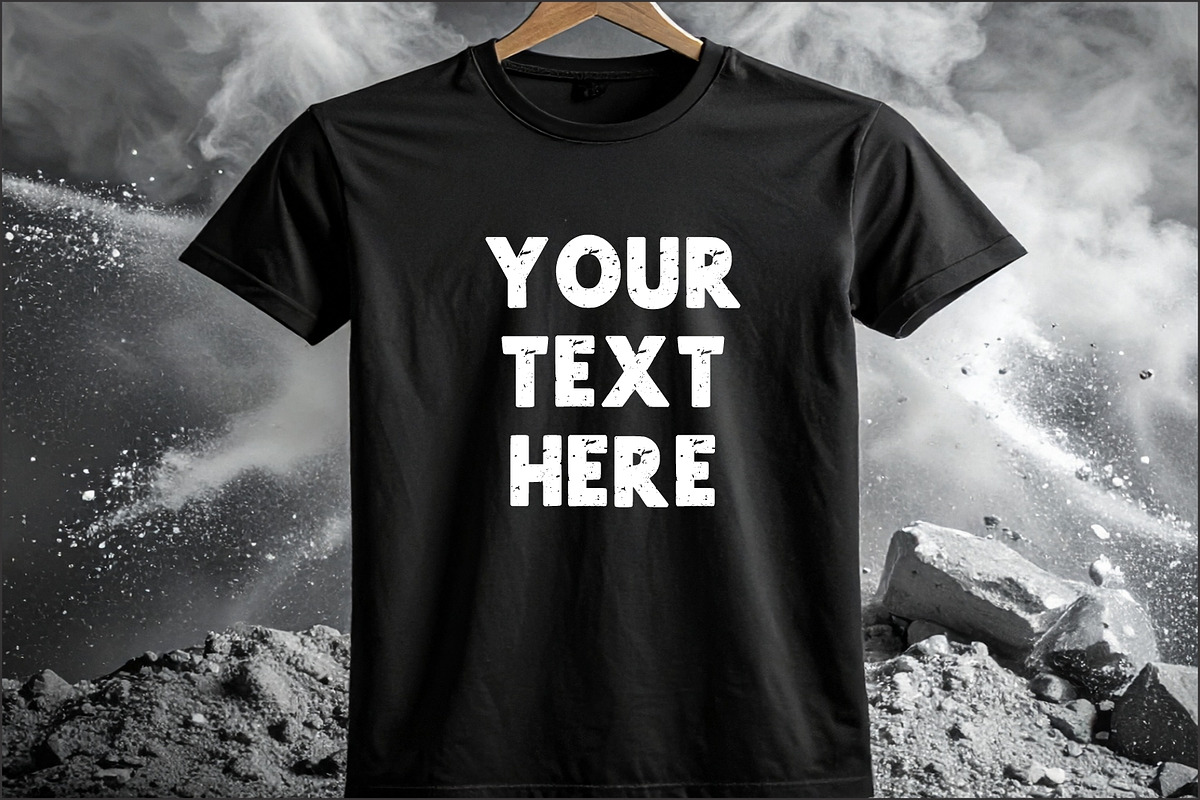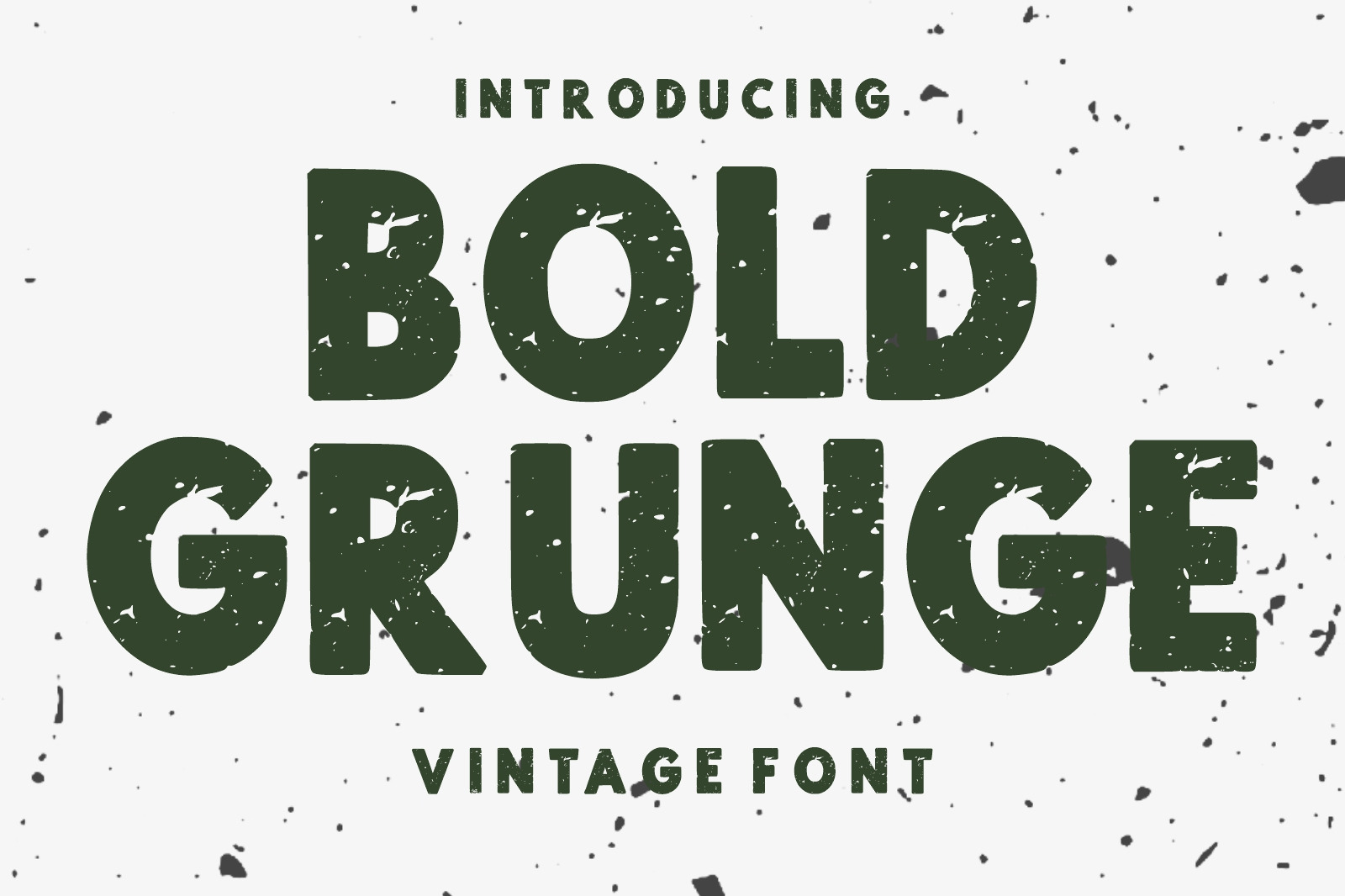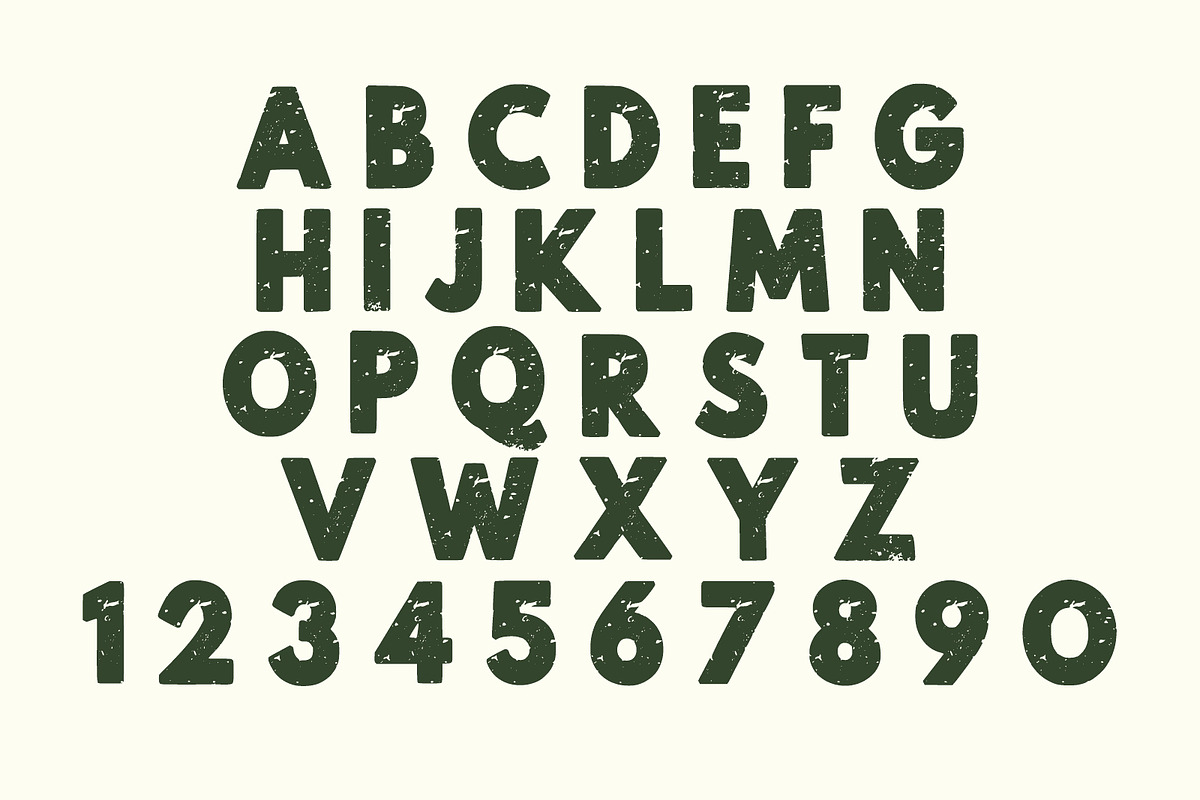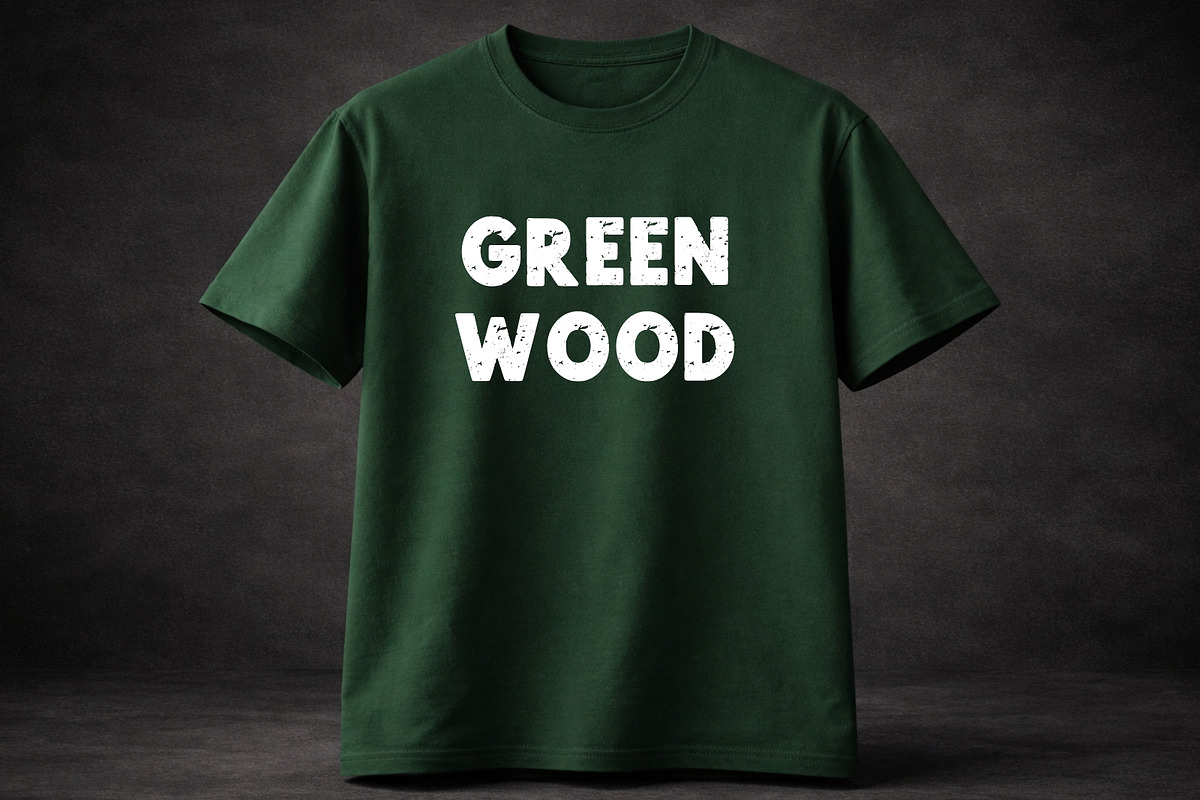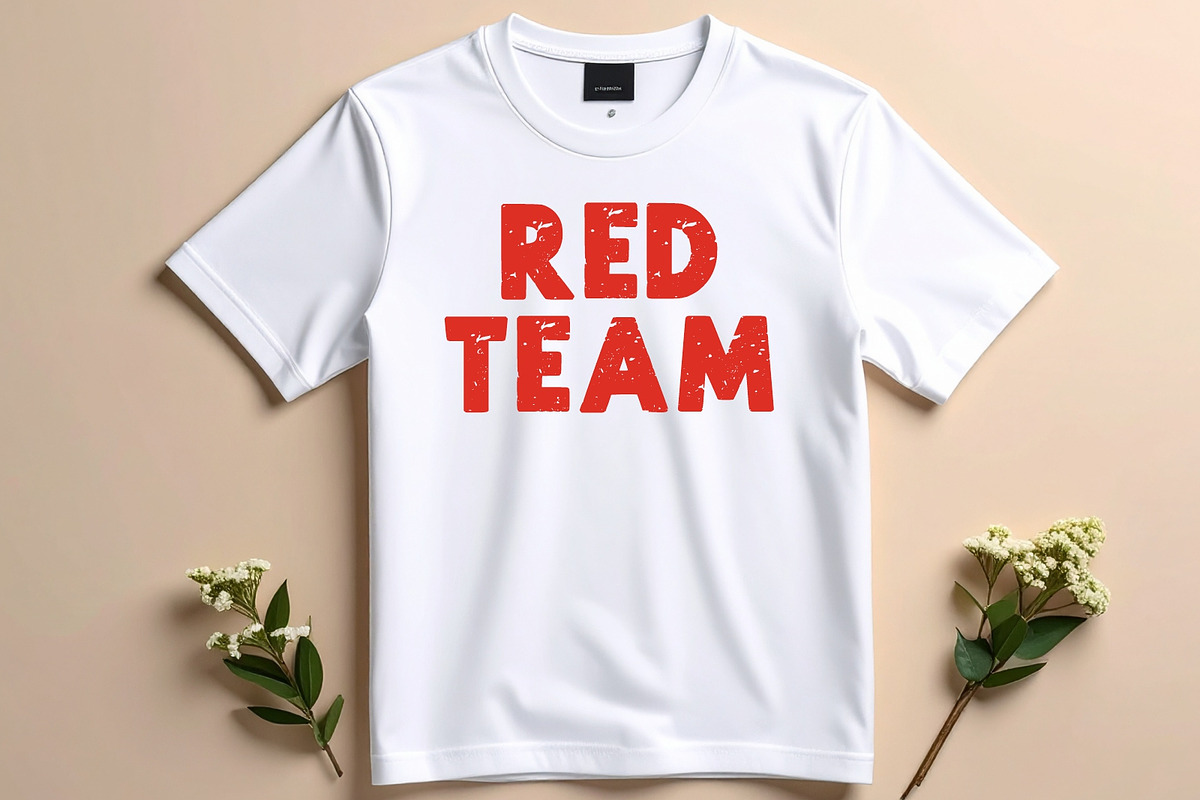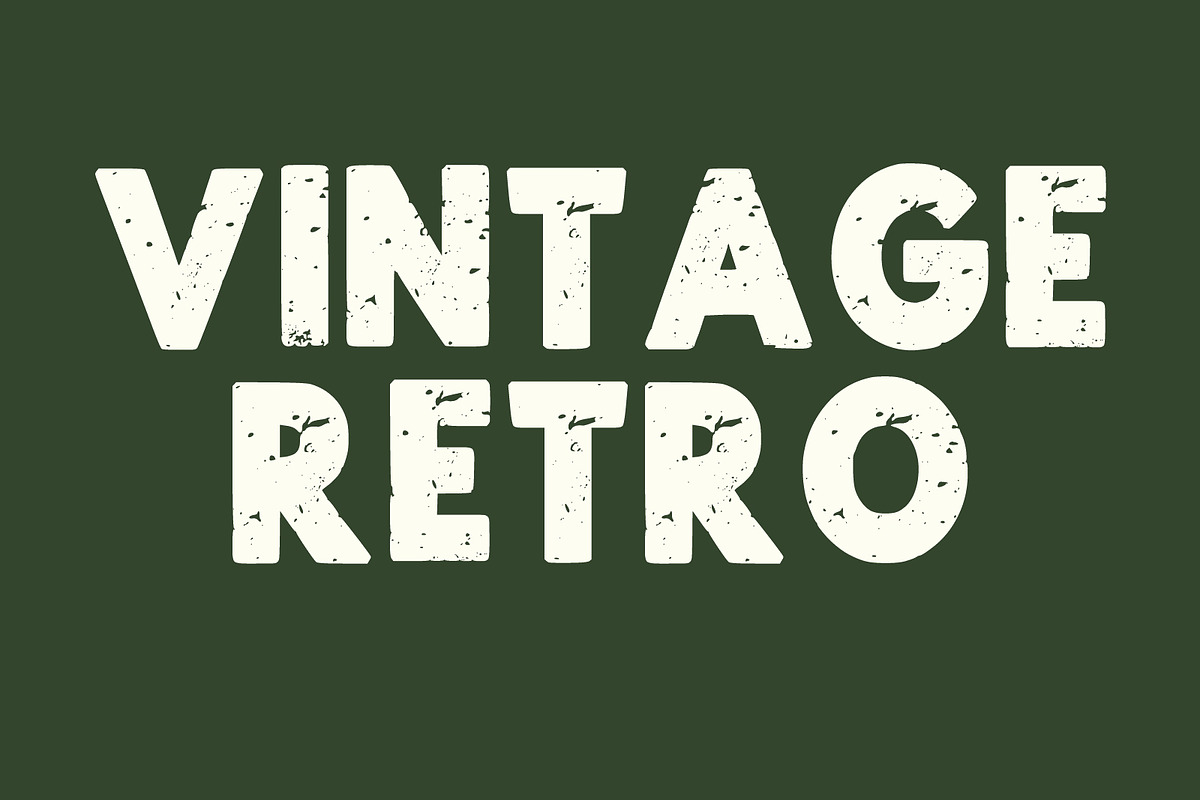
Bold Grunge Vintage Font
Bold Grunge Vintage Font is a strong and rugged display typeface inspired by retro posters, worn textures, and classic vintage signage. Featuring bold letterforms with distressed grunge details, this font is perfect for creating eye-catching logos, posters, t-shirt designs, branding, packaging, headlines, sports graphics, and retro-themed projects. Its rough vintage character gives every design a bold, authentic, and timeless look. Ideal for creators who want a powerful retro aesthetic with a modern grunge touch.